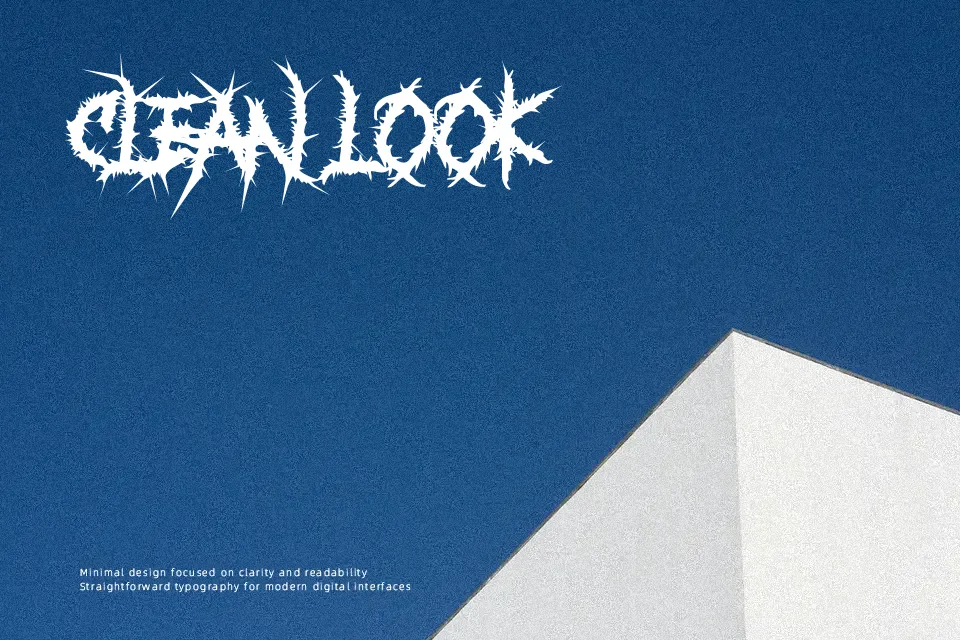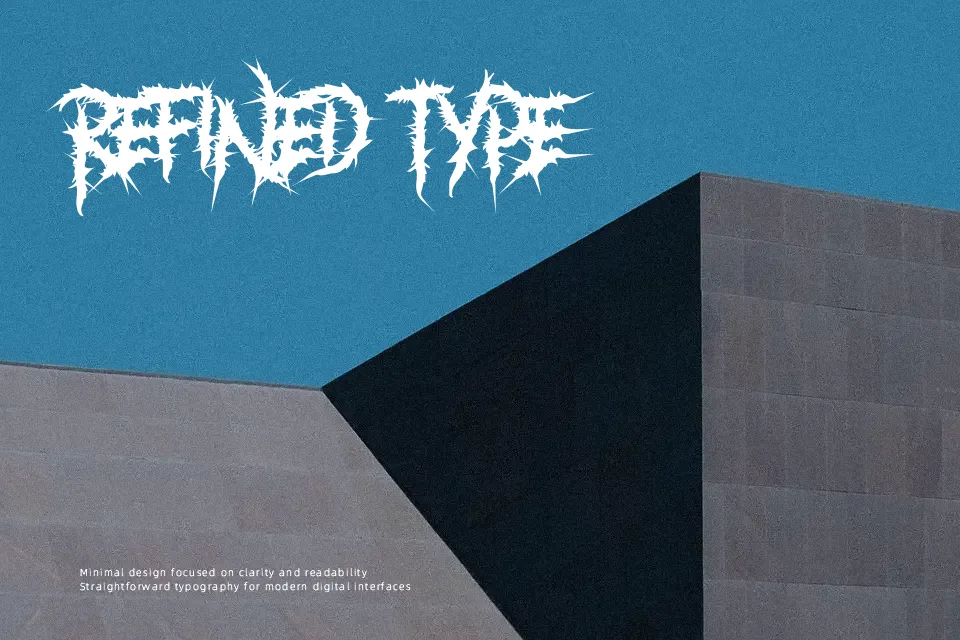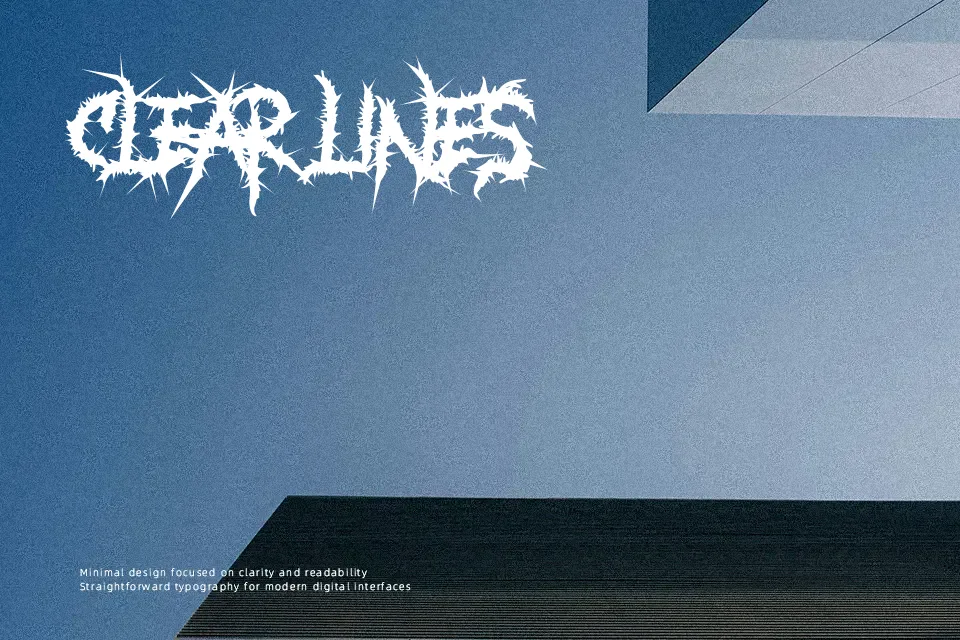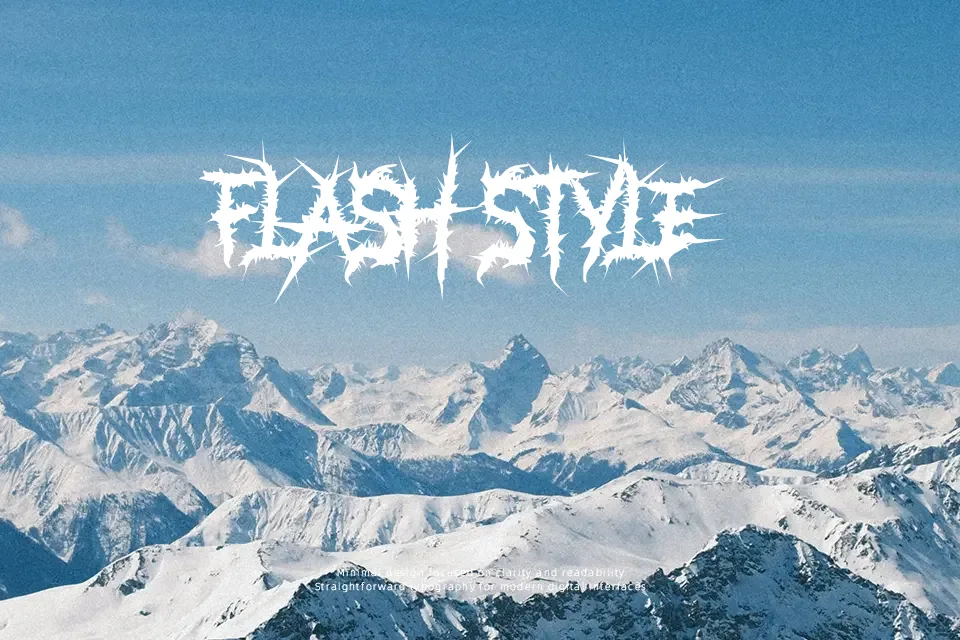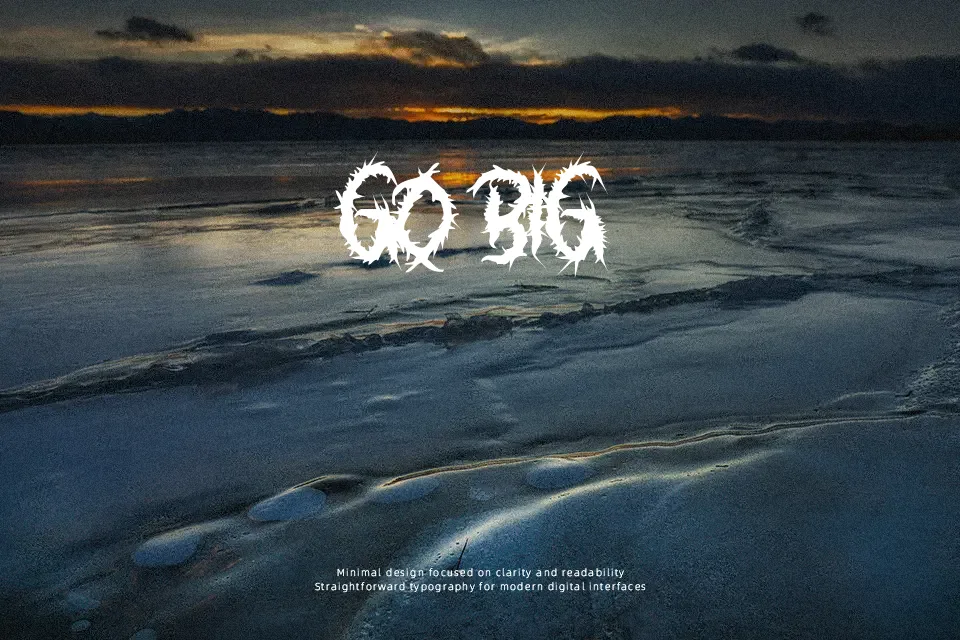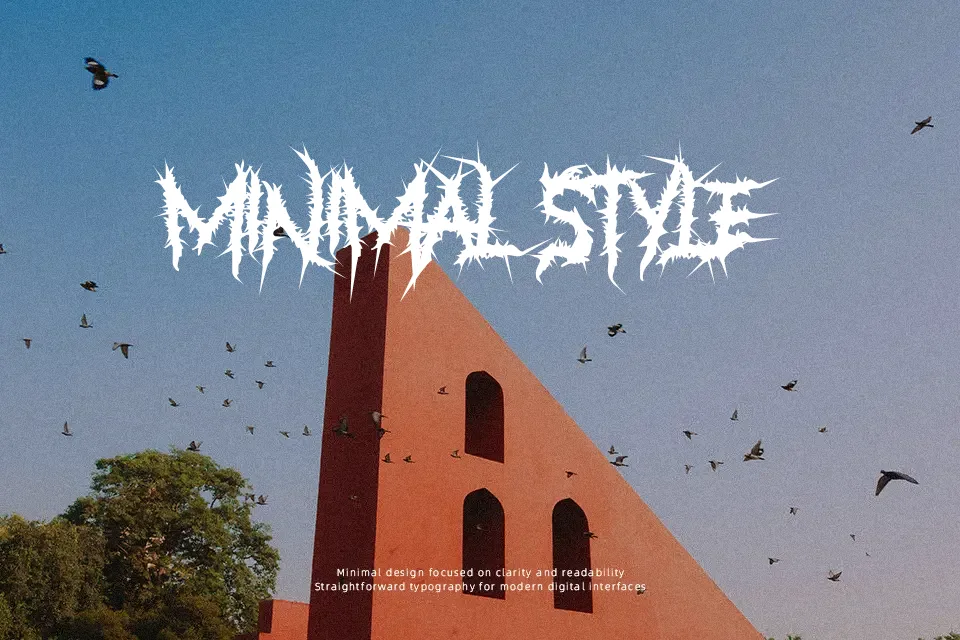
Something in The Grave Yard Font
Something in The Grave Yard uses tightly packed, highly decorative letterforms with sharp, irregular contours and a dense black-metal appearance. The strokes create a rough, intertwined texture, while the compressed proportions make individual characters more effective as part of a large wordmark than as isolated small text. It works best for short titles, band-style logos, and atmospheric poster graphics. The visual density gives large headlines a forceful presence, but the forms become difficult to distinguish at reduced sizes. This typeface is a practical choice when mood and silhouette are more important than quick reading.
Best For: black metal band logos,horror film titles,dark music posters,Halloween apparel graphics
Perfect for halloween, logo, and music, with a dark and blackletter style.